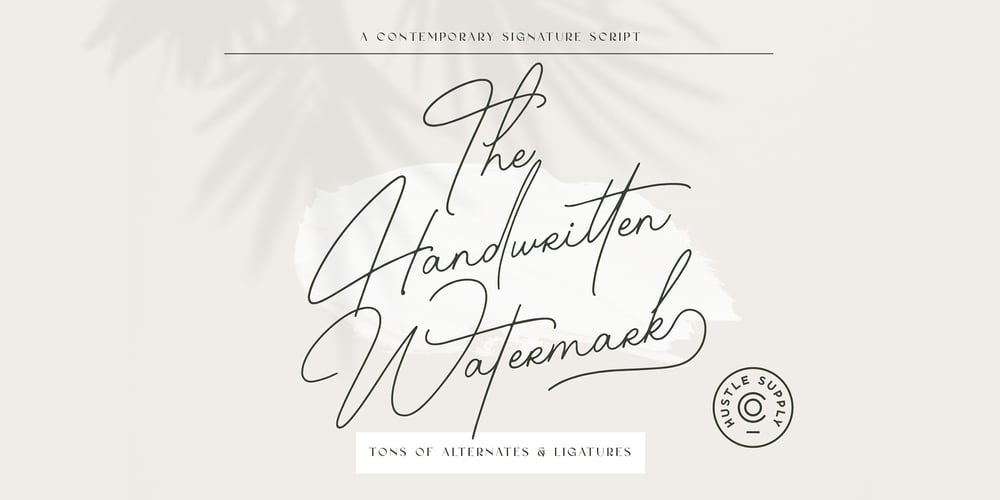
The Handwritten Watermark
The Handwritten Watermark font
The Handwritten Watermark Font Family was designed by Jeremy Vessey and published by Hustle Supply Co. The Handwritten Watermark contains 2 styles and family package options. Introducing The Handwritten Watermark, a versatile signature script that comes loaded with 55 ligatures and dozens of alternative characters. This script typeface was made to stand out. It has large beautifully written capital letters. The ligatures and alternates give you so many combination options. The Handwritten Watermark with its many glyphs, is the perfect signature script to help you personalize a branding project.What’s included? Web fonts Western European Characters